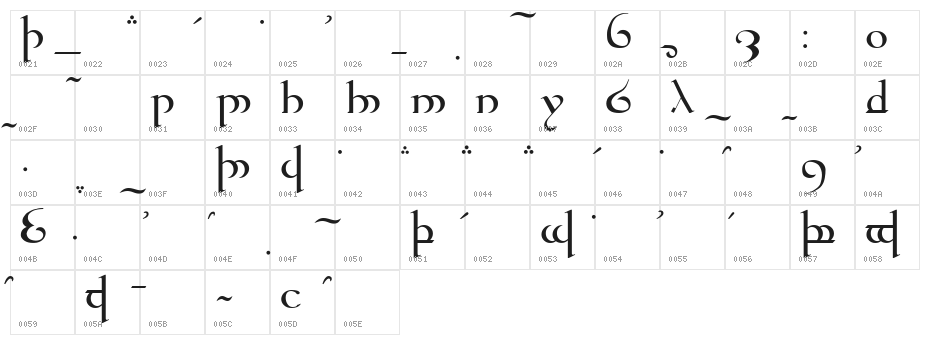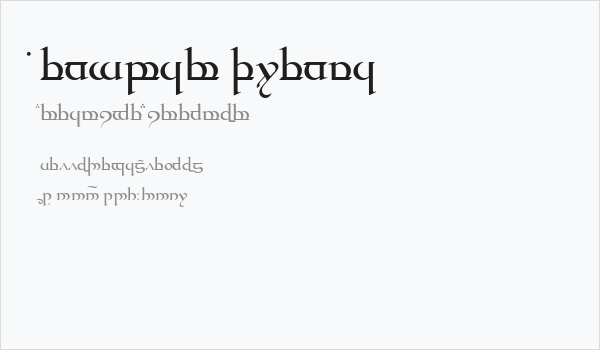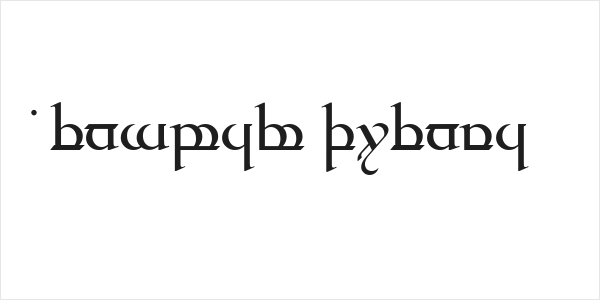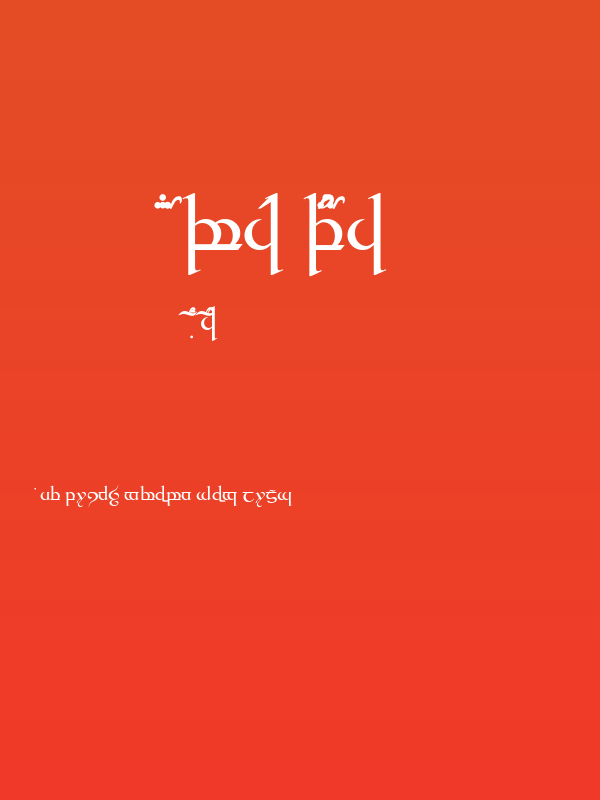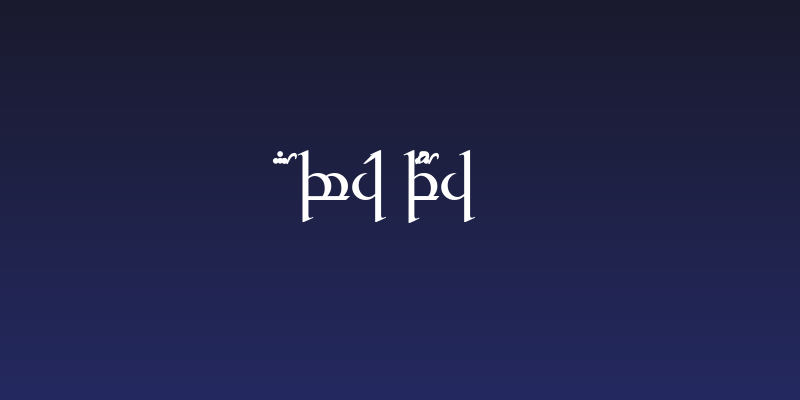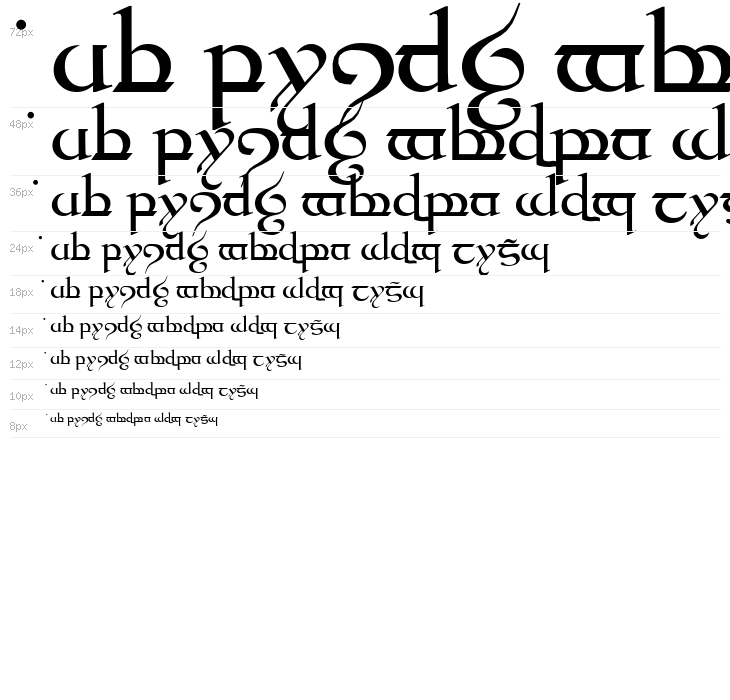
Tengwar Quenya Font
Tengwar Quenya Description
This font is a beautifully crafted script that evokes a sense of fantasy and elegance. The characters are intricately designed with flowing lines and unique curves, reminiscent of ancient scripts. The overall appearance is both decorative and sophisticated, making it ideal for projects that require a touch of mystique and artistry. The font features a balanced mix of thick and thin strokes, providing a medium contrast that enhances readability while maintaining its ornamental style. The spacing between characters is normal, allowing for clear legibility without compromising its decorative nature.
| Use Case | Logos, Artistic projects, Fantasy themes |
| Proposed Projects | Ideal for fantasy-themed designs, book covers, invitations, and artistic projects requiring a mystical touch. |